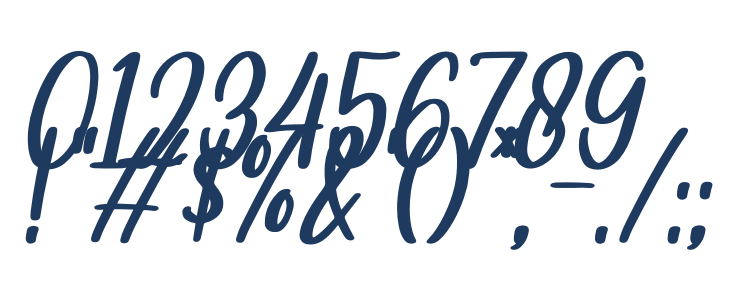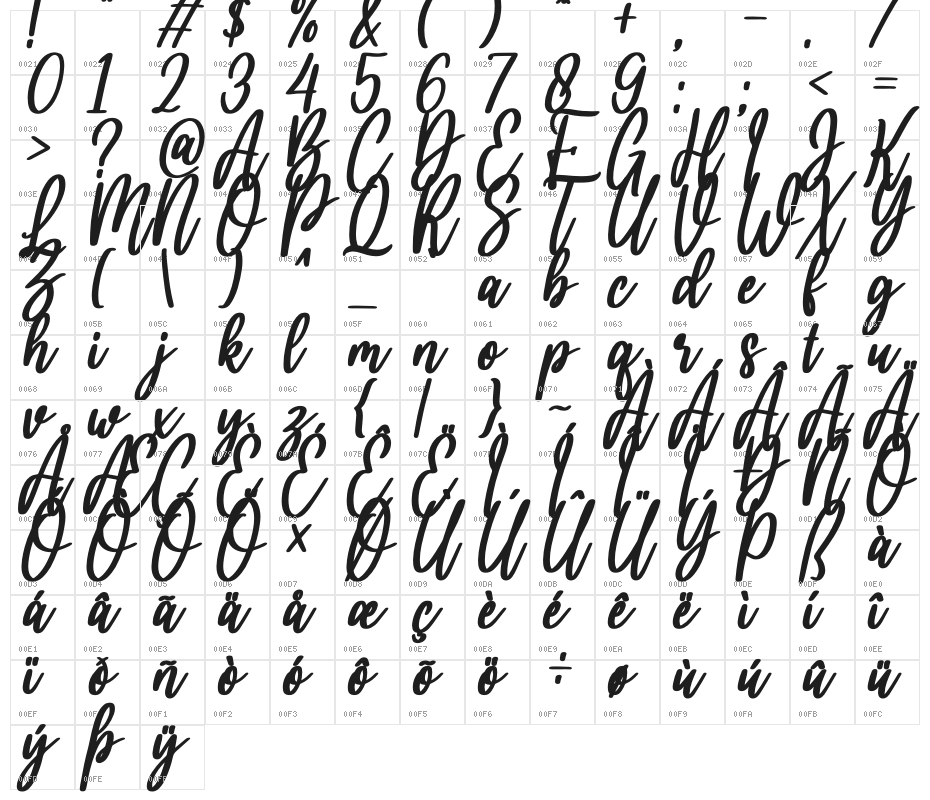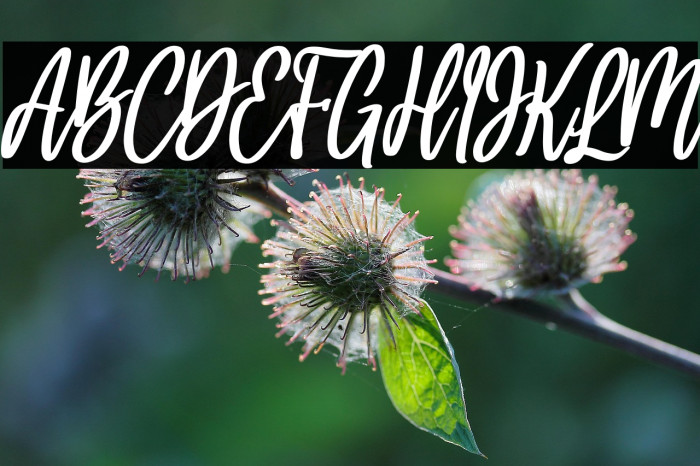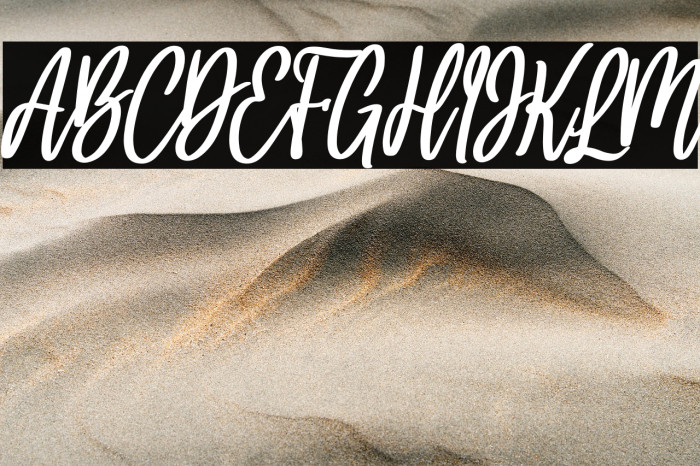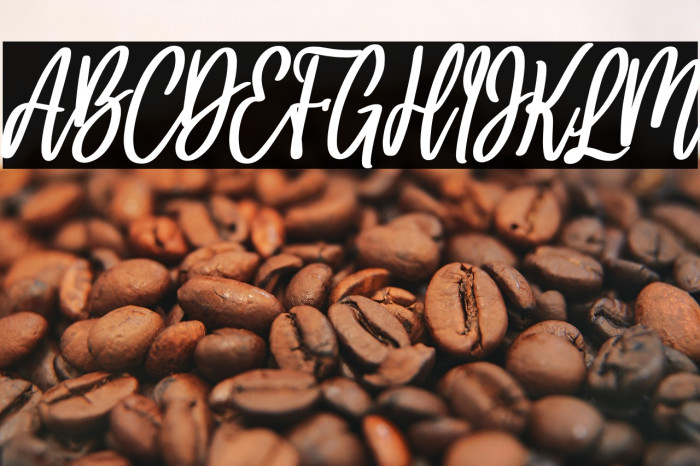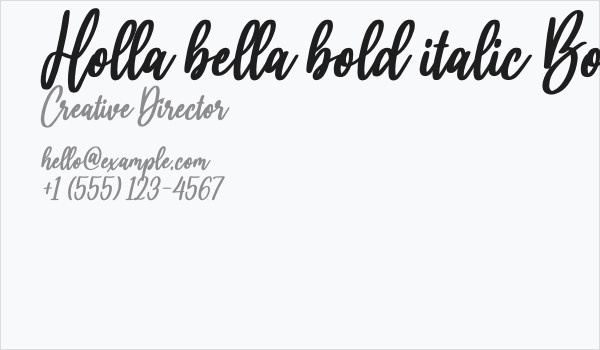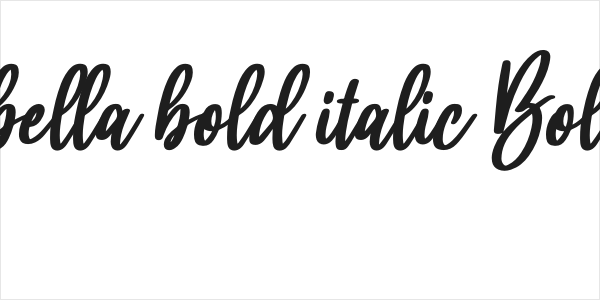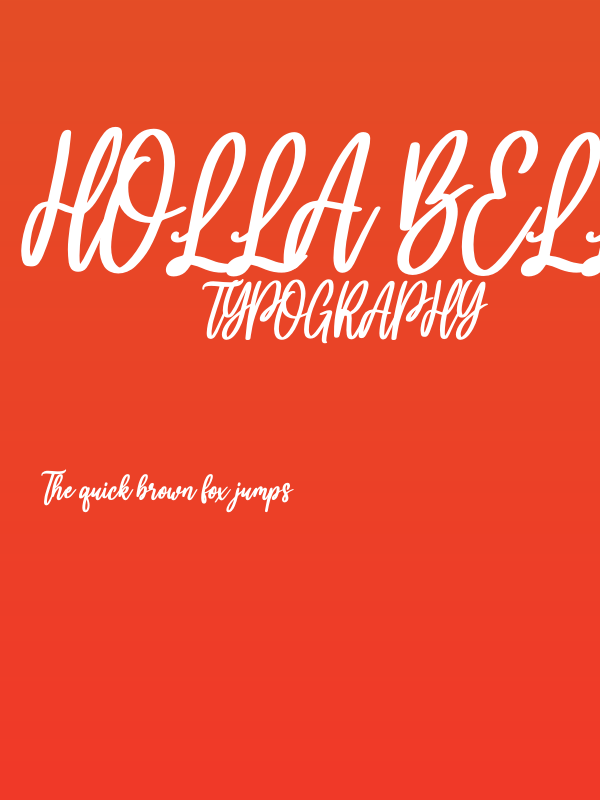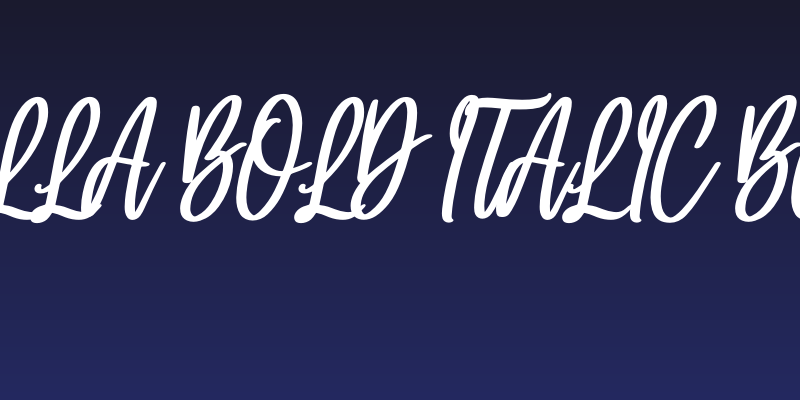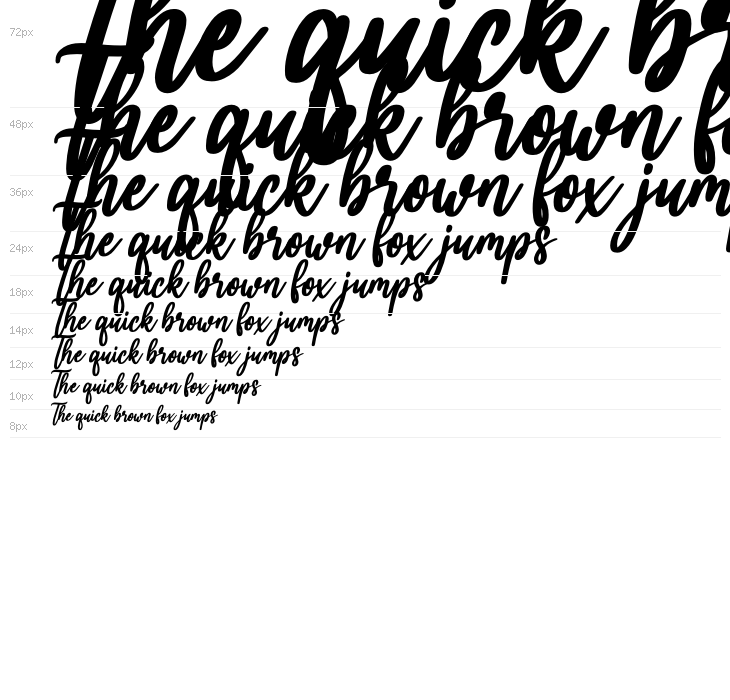
Holla bella bold italic Bold Italic Font
This font exudes a bold and dynamic presence with its italicized script style. The characters are fluid and connected, giving a sense of motion and elegance. Each letter flows seamlessly into the next, creating a cohesive and harmonious look. The bold weight adds a strong visual impact, making it stand out in any design. The strokes are smooth and rounded, enhancing the overall readability despite the decorative nature. The font maintains a consistent slant, adding to its energetic and lively appearance. It is well-suited for projects that require a touch of sophistication and flair.